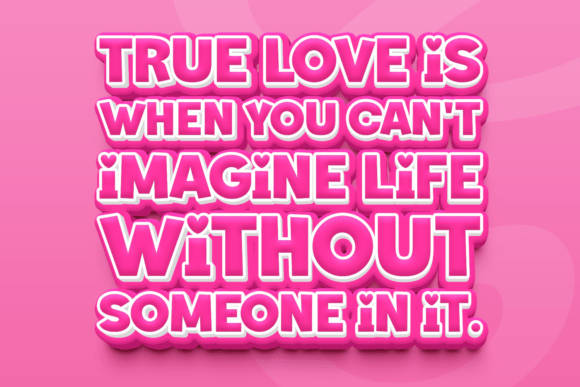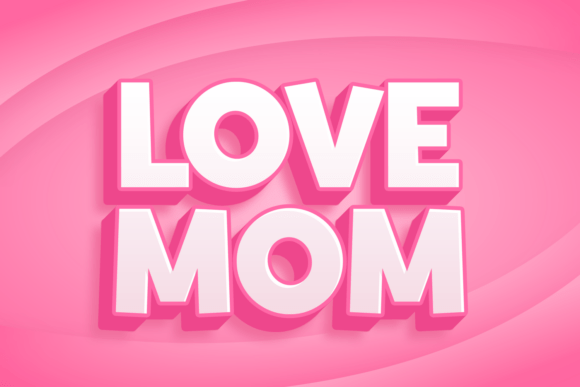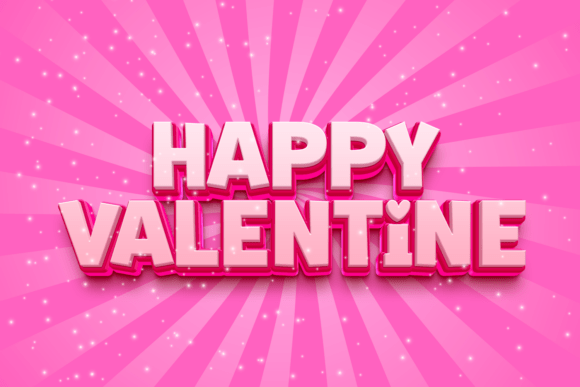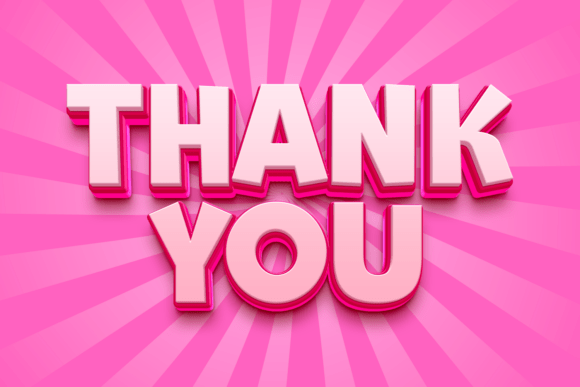
Introducing Amour Comic Font: The Ultimate Display Font for Love-Themed and Holiday-Themed Designs
Are you looking for a font that can add a touch of romance and whimsy to your designs? Look no further than Amour Comic Font, a unique and versatile display font that’s perfect for love-themed and holiday-themed affairs. In this article, we’ll explore the features and benefits of Amour Comic Font, and show you how it can elevate your designs to the next level.
A Font that Speaks to the Heart
Amour Comic Font is a melange of display fonts that sets an impeccable tone for any love-themed or holiday-themed design. Whether you’re celebrating wedding vows, expressing Valentine’s Day emotions, or declaring a warm Merry Christmas, this inviting typography embraces them all effortlessly. The font’s smooth, clean finish and fluid, fresh, and round strokes give it a unique charm that’s hard to resist.
Authenticity that Transcends Languages
One of the standout features of Amour Comic Font is its ability to transcend language boundaries. The font pulls in multi-lingual, accented, and Eastern European notes, making it a great choice for designers who work with international clients or want to create designs that appeal to a global audience. Whether you’re designing for a wedding invitation, a Valentine’s Day card, or a Christmas gift tag, Amour Comic Font is the perfect choice.
Amour Comic Font is incredibly versatile, and can be used for a wide range of design projects. Here are just a few ideas to get you started:
- Greeting cards with heartwarming quotes
- Brand designs that exude personality
- Product packaging that stands out
- Apparel labels that tantalize
- Eye-catching posters and flyers
- Strikingly curated logotypes
What Makes Amour Comic Font So Special?
So what sets Amour Comic Font apart from other display fonts on the market? Here are just a few features that make it so special:
- Unique and whimsical design
- Smooth, clean finish
- Fluid, fresh, and round strokes
- Multi-lingual, accented, and Eastern European notes
- Perfect for love-themed and holiday-themed designs
How to Use Amour Comic Font in Your Designs
Using Amour Comic Font in your designs is easy. Here are a few tips to get you started:
- Pair it with a complementary font for added contrast
- Use it as a headline font for maximum impact
- Experiment with different colors and textures
| Font Name | Amour Comic Font |
| Author | Anto (7NTypes) |
In conclusion, Amour Comic Font is a unique and versatile display font that’s perfect for love-themed and holiday-themed designs. With its smooth, clean finish, fluid, fresh, and round strokes, and multi-lingual, accented, and Eastern European notes, it’s the perfect choice for designers who want to add a touch of romance and whimsy to their designs. So why wait? Unveil the swashes of Amour Comic Font, and let it whisk you away in its irresistibly authentic allure.
Key Features of Amour Comic Font
| Font Style | Display Font |
| Language Support | Multi-lingual, accented, and Eastern European notes |
| Design Elements | Smooth, clean finish, fluid, fresh, and round strokes |
| Use Cases | Greeting cards, brand designs, product packaging, apparel labels, posters, and logotypes |
Get Ready to Fall in Love with Amour Comic Font